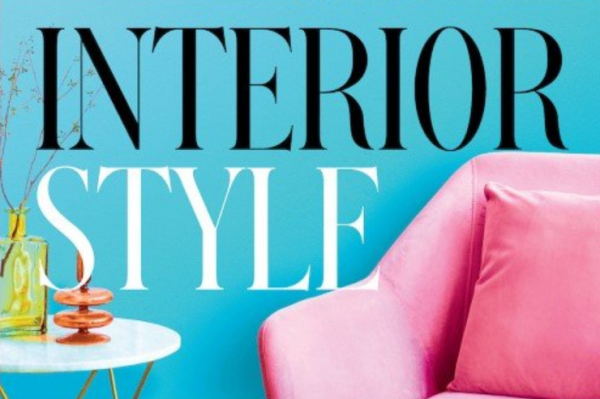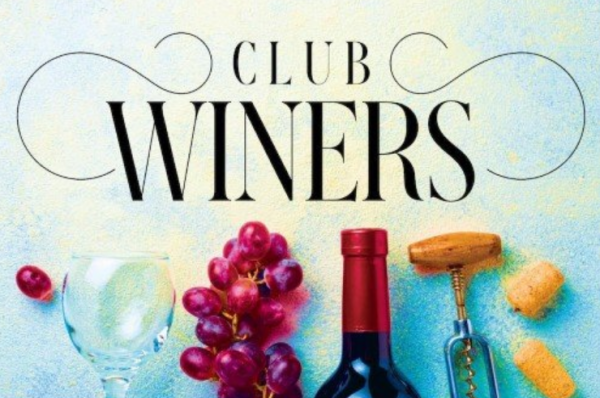
Club Winers Font
Club Winers Font, a captivating serif font that exudes sophistication, richness, and luxury. With its elegant and timeless appeal, It is the perfect choice for those seeking a touch of refined beauty in their typographic creations. Designed with meticulous attention to detail, Club Winers showcases graceful serifs, meticulously crafted letterforms, and subtle yet distinctive curves. Each character is thoughtfully balanced, resulting in a harmonious interplay between classic elegance and contemporary allure. This versatile typeface finds its place in a variety of design applications. Consider using Club Winers to add a touch of refinement to high-end branding projects, exquisite editorial layouts, luxurious packaging designs, and upscale invitations. Its commanding presence and legibility make it equally suitable for headlines, body text, and display purposes.